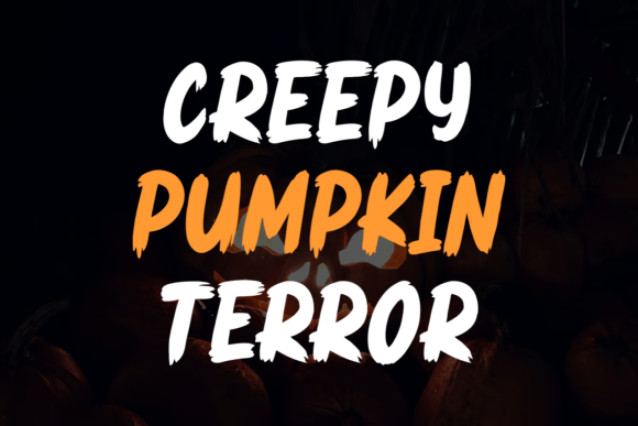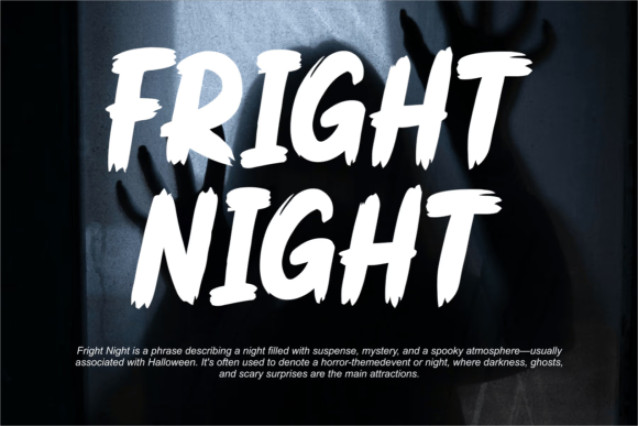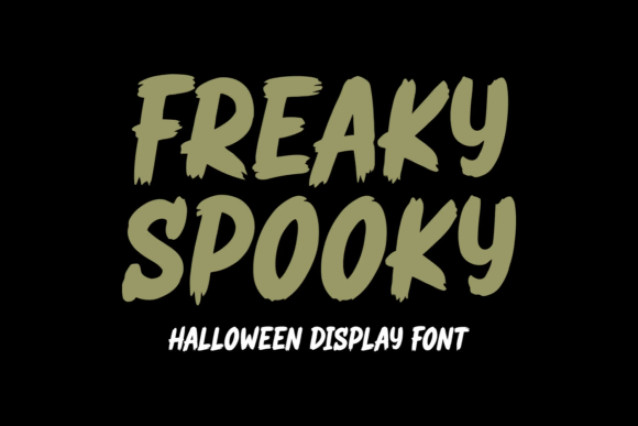
Freaky Spooky Font
Freaky Spooky is a bold and thrilling Halloween display font that blends creepy vibes with a playful twist. Designed with thick brush strokes and jagged edges, each letter looks as if it’s been hand-painted straight from a haunted storybook or carved onto the sign of an eerie, abandoned house.
Perfect for a wide range of creative projects, from Halloween party invitations, haunted house decorations, and spooky t-shirt designs to horror-themed book covers, posters, and seasonal branding. Freaky Spooky is built to grab attention, making your headlines, titles, and decorative text stand out with a mix of fright and fun.
Its combination of playful curves and eerie shapes creates a unique balance—spooky enough to set the mood, yet stylish enough to be used across many creative styles. Whether you want to make your designs feel thrilling, mysterious, or just downright fun, Freaky Spooky will bring your words to life with haunting charm.